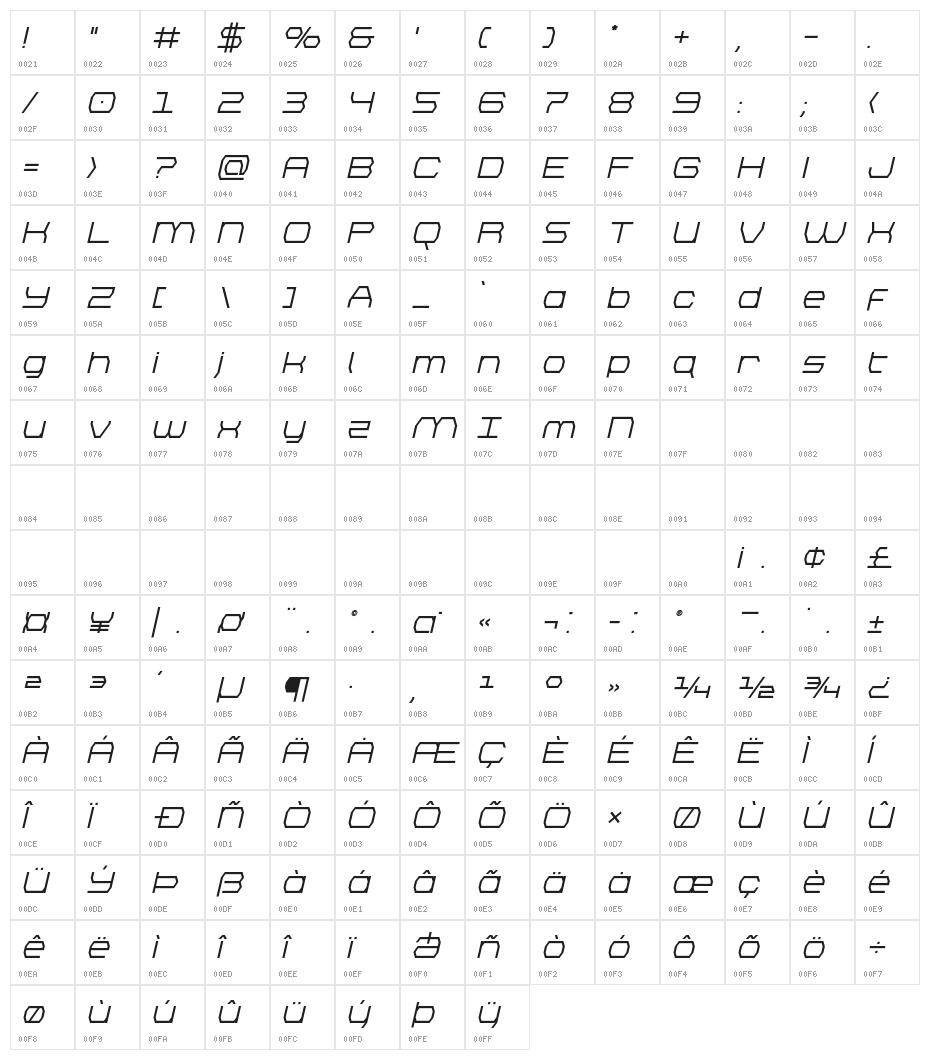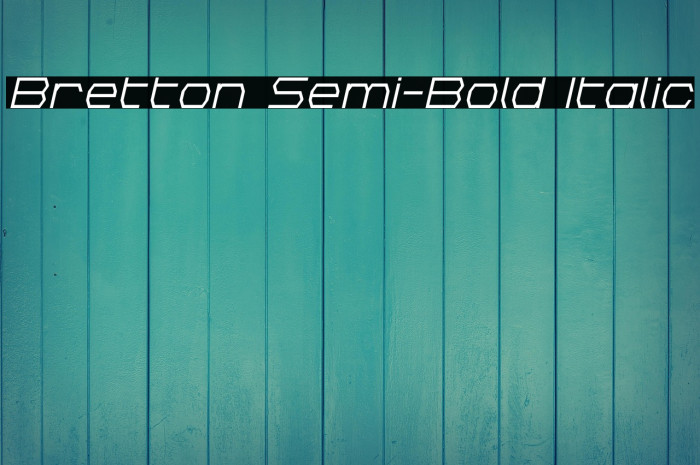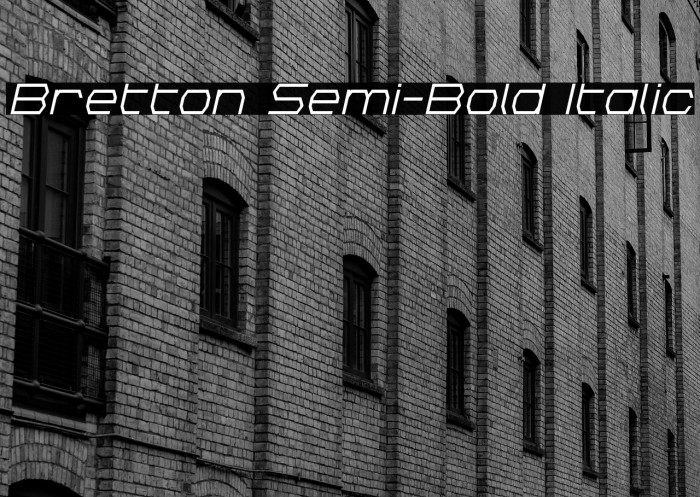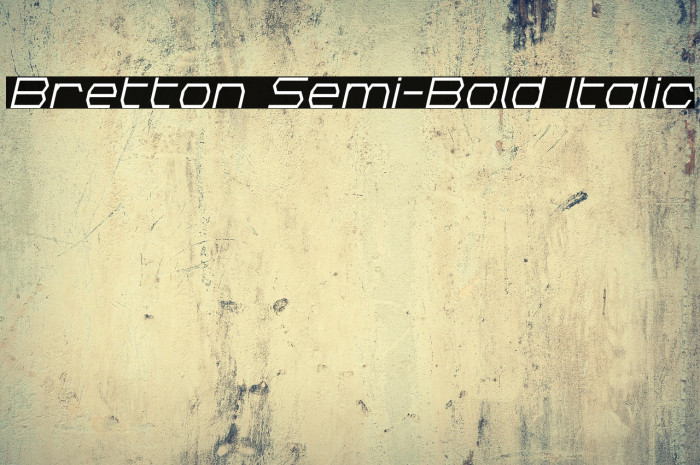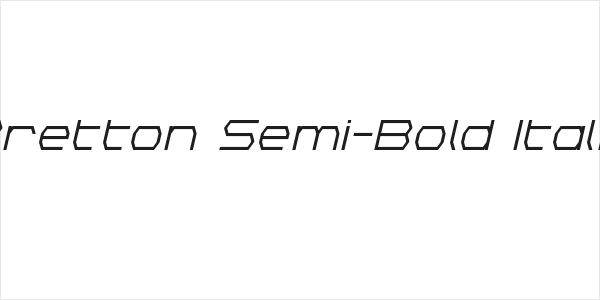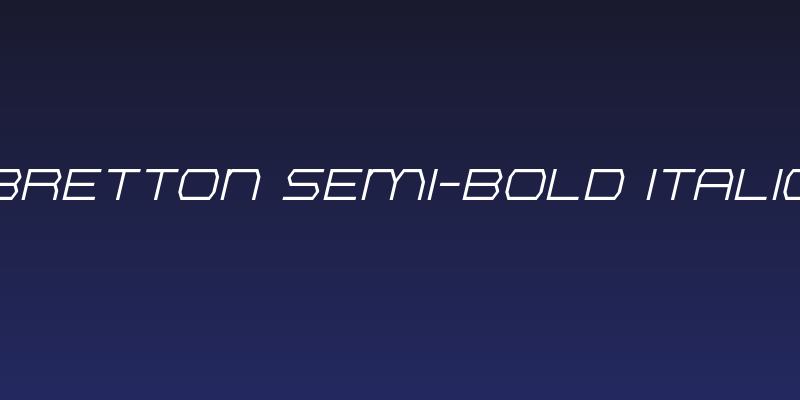
Bretton Semi-Bold Italic Font
Bretton Semi-Bold Italic Description
This font features a modern and sleek design with a semi-bold weight and italic style. The characters are slightly condensed, giving it a compact appearance. The angular and geometric shapes of the letters create a futuristic and technical feel. The consistent stroke width across characters provides a uniform look, while the italic slant adds a dynamic and forward-moving energy. The font maintains readability with clear distinctions between each character, making it suitable for various design applications. The numerals and special characters follow the same stylistic approach, ensuring cohesion throughout.
| Proposed Projects | Ideal for technology branding, modern web design, and futuristic posters. |